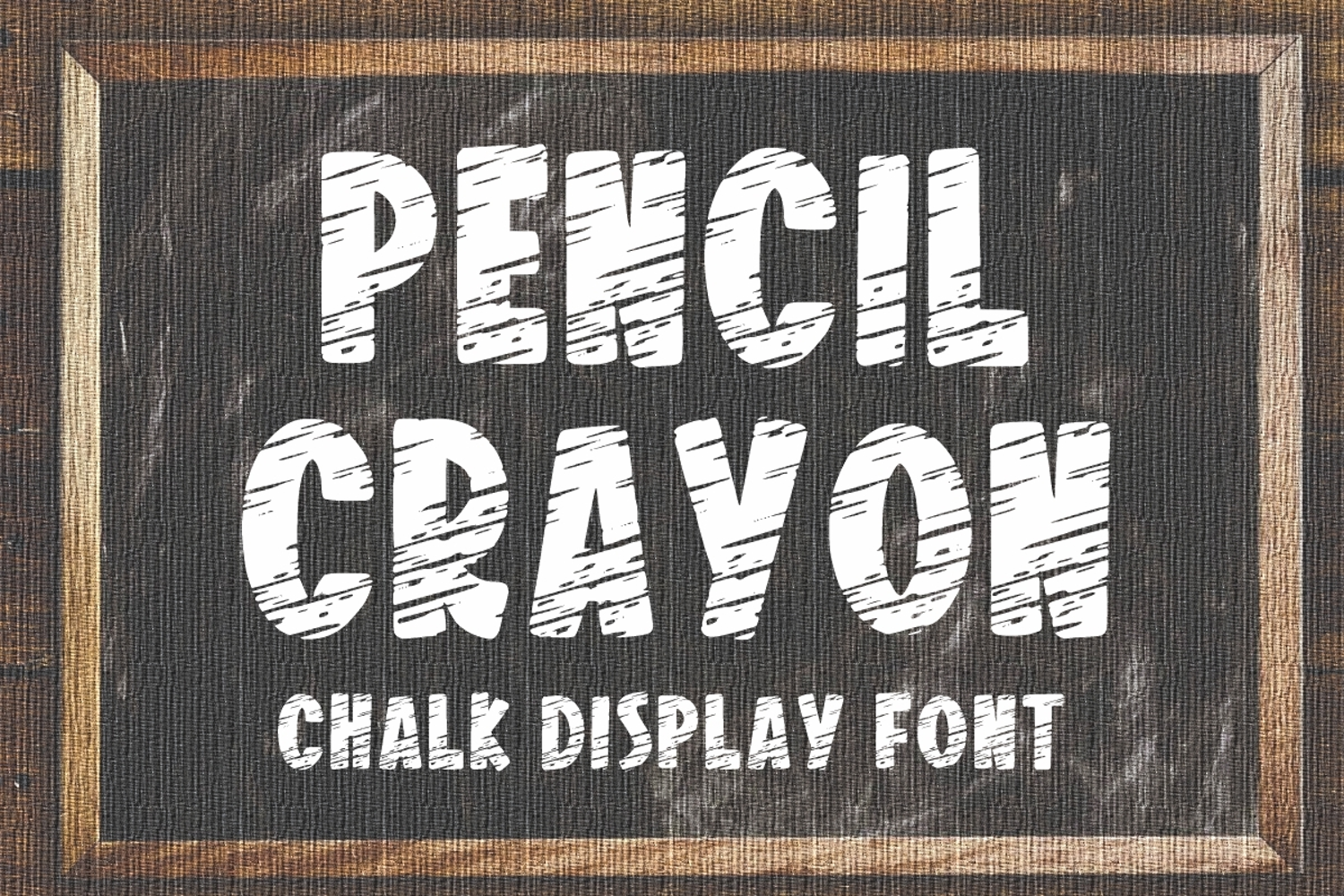
Pencil Crayon
Pencil Crayon is a pencil and chalk display font. You can use it for various projects, such as blog posts, logos, branding, ads, invitations, greeting cards, planners, photo albums, decorations, and much more.